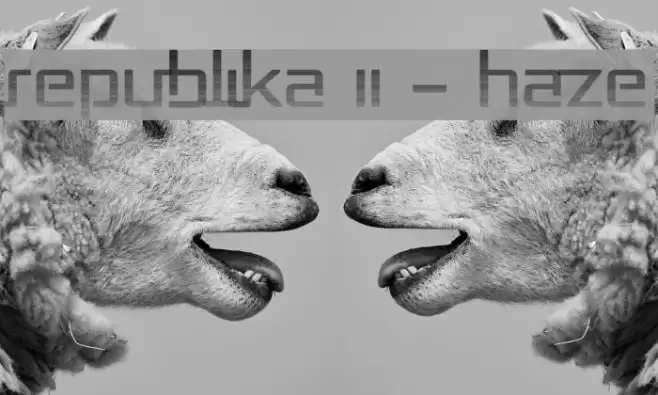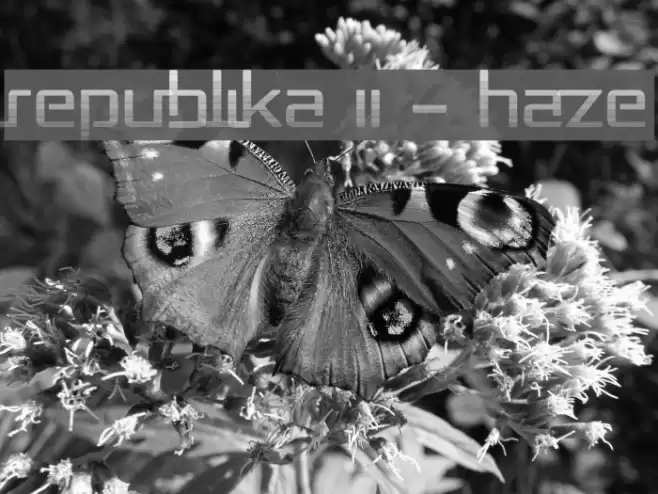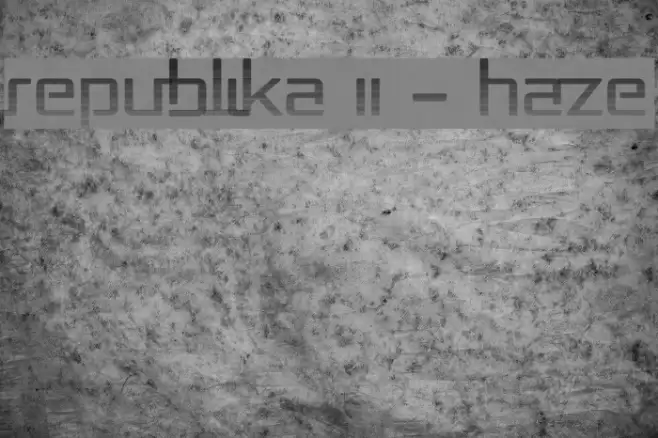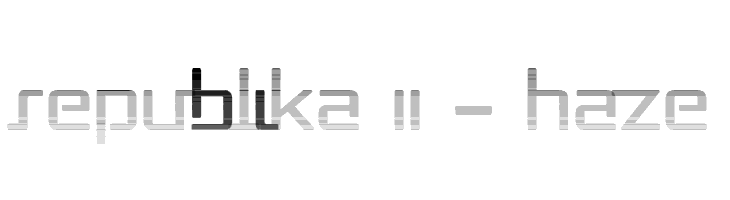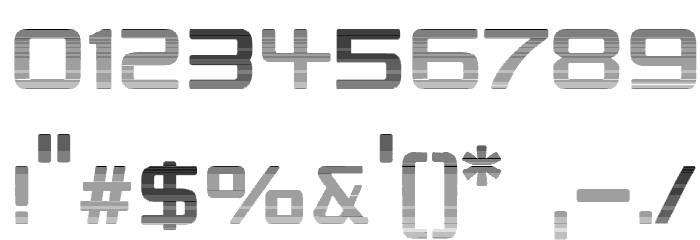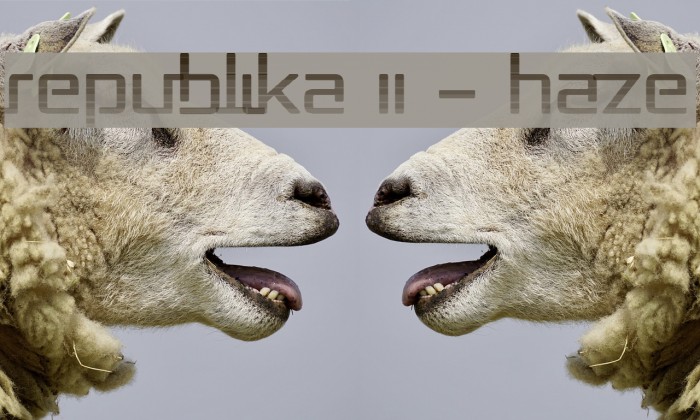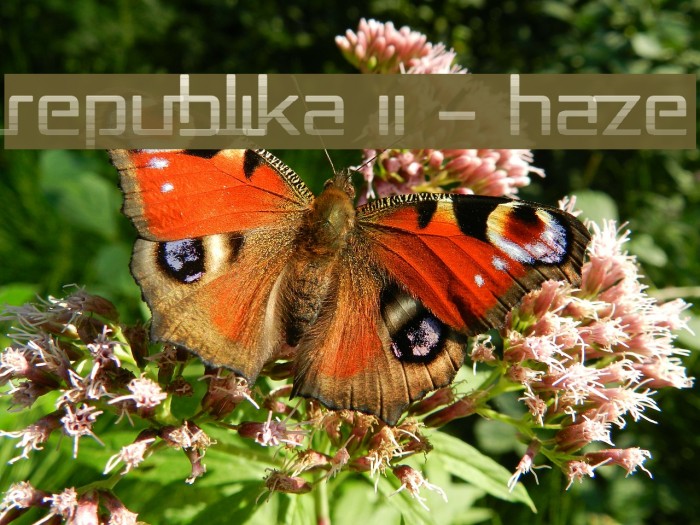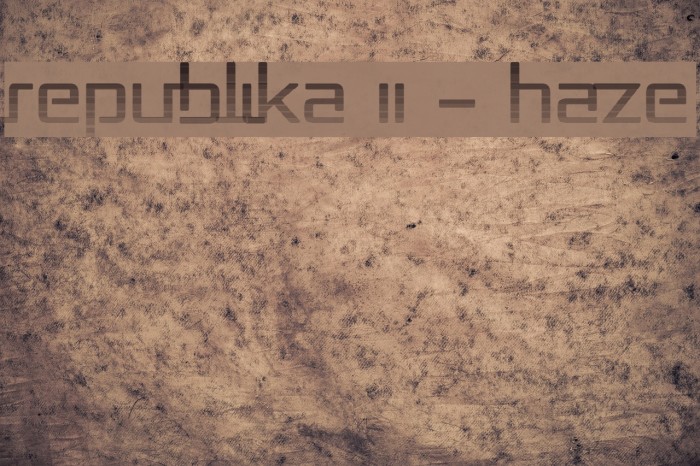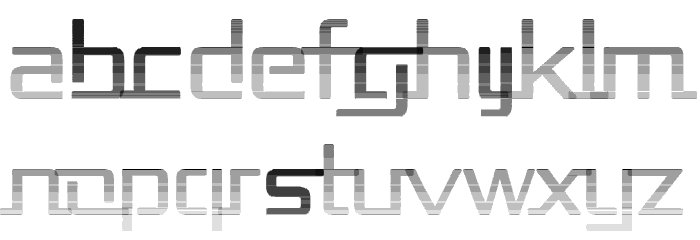
Republika II - Haze Font
Republika II - Haze Description
This font features a futuristic and digital aesthetic, characterized by its geometric shapes and linear patterns. The letters are constructed with a consistent width, giving it a monospaced appearance, while the horizontal lines create a sense of movement and modernity. The font's design incorporates a gradient effect, adding depth and a unique visual texture. Its clean and structured form makes it suitable for projects that require a contemporary and tech-savvy look. The characters are evenly spaced, ensuring readability and balance across different sizes.
A futuristic, geometric font with a digital, monospaced style and gradient effect from Uncategorized fonts.
- Proposed Projects: Ideal for tech branding, digital interfaces, video game titles, and futuristic-themed designs.
- Use Case: Logos, Headlines, Digital interfaces